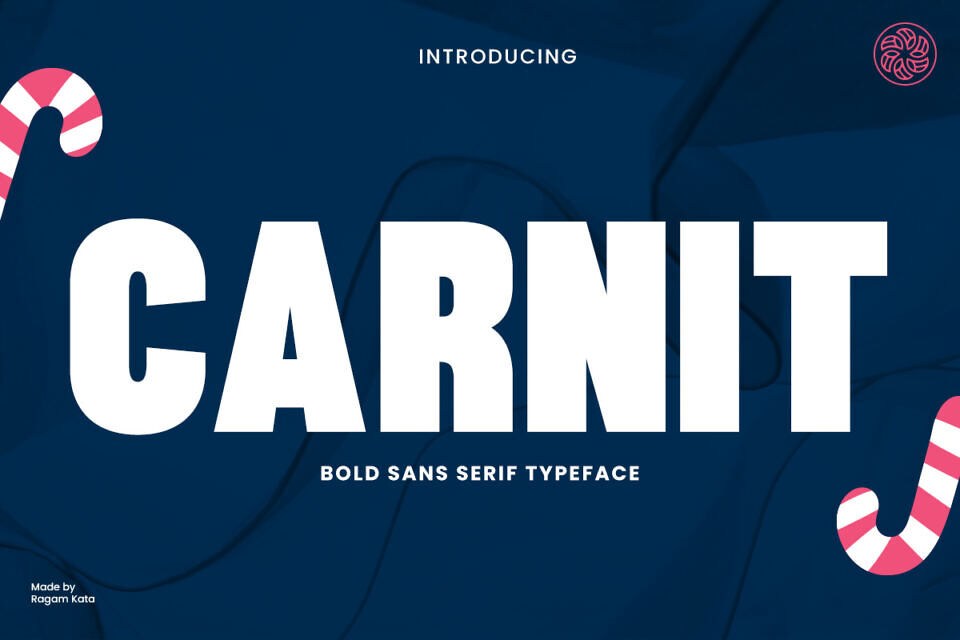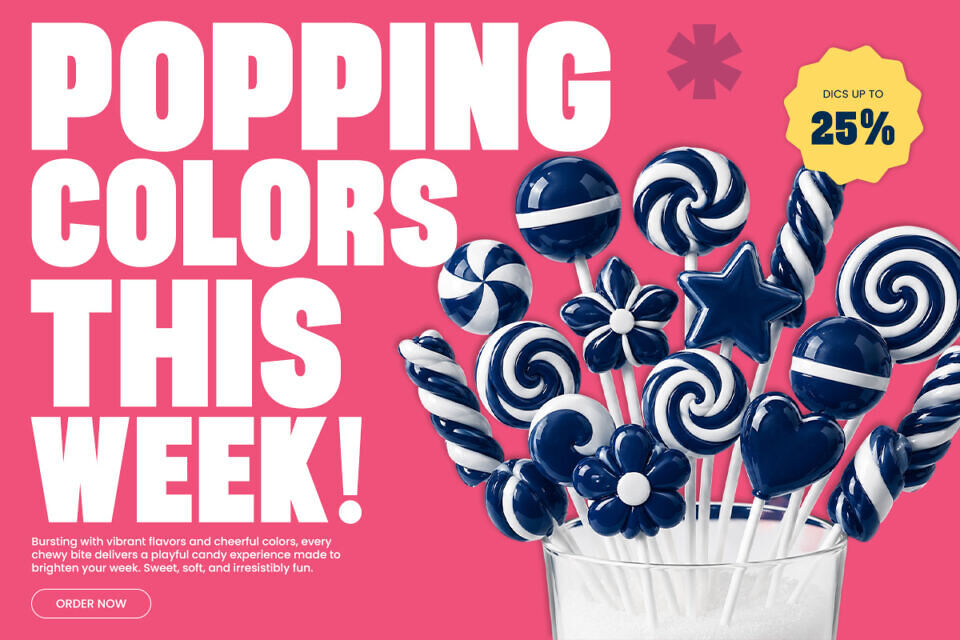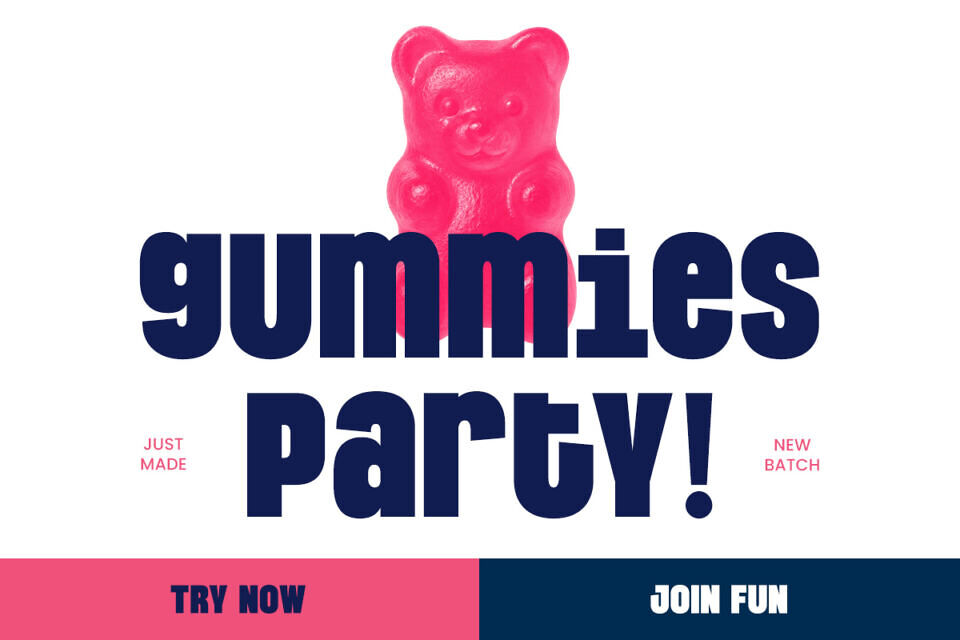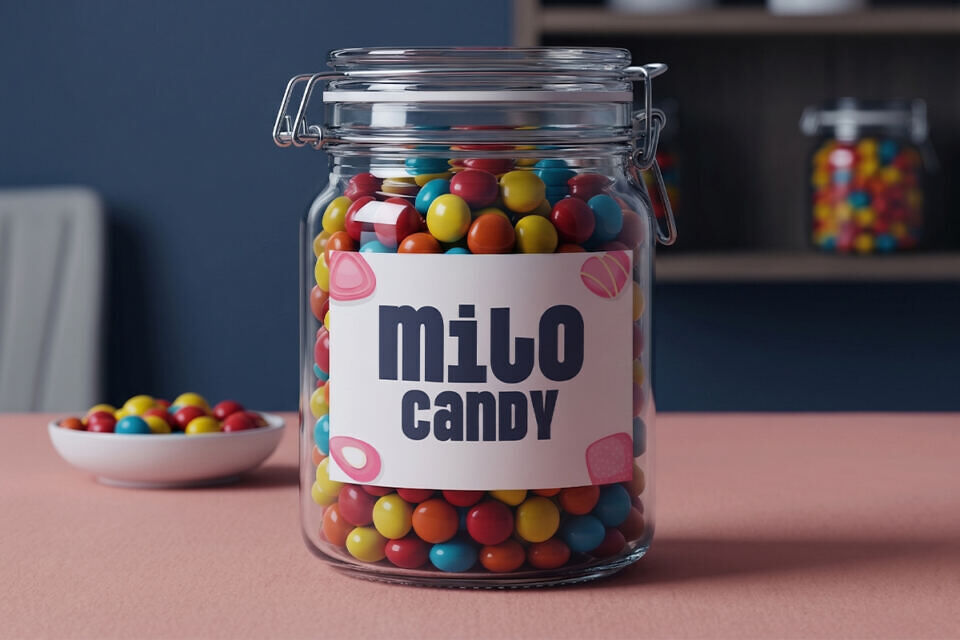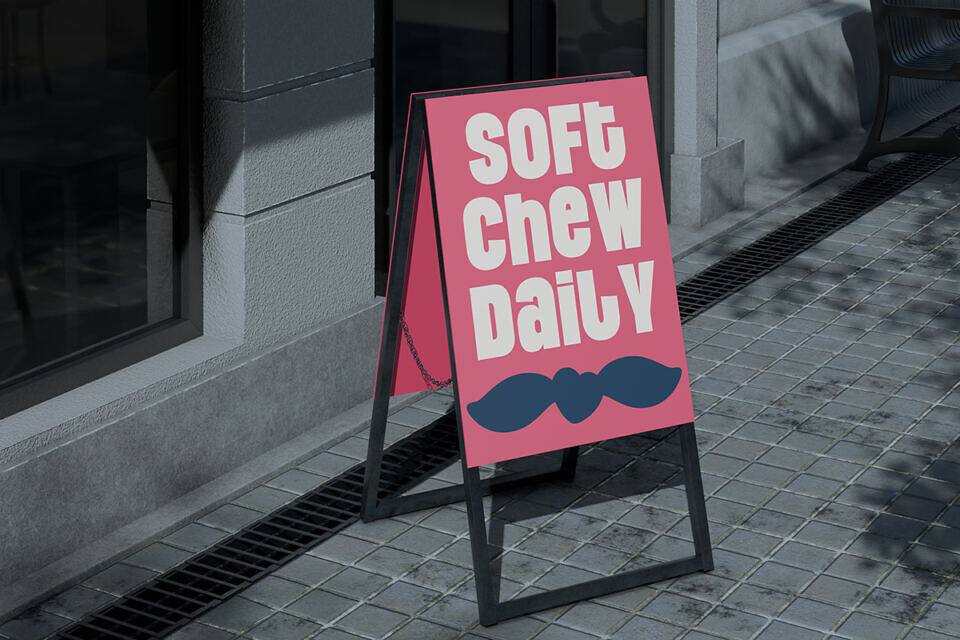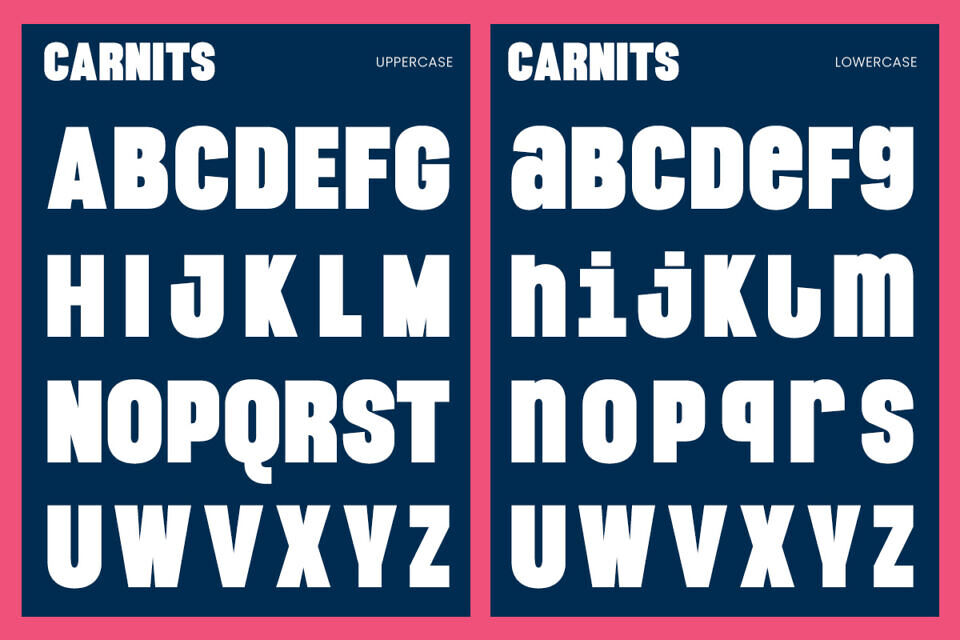
Carnit is a bold sans serif typeface designed to make every message impossible to ignore. With its chunky letterforms, playful personality, and strong geometric structure, Carnit brings instant energy to branding, packaging, posters, and modern advertising. The bold silhouette creates maximum visual impact while maintaining excellent readability across both print and digital media.
Perfect for candy brands, food packaging, children’s products, social media graphics, logos, headlines, merchandise, and promotional campaigns, Carnit delivers a fun and confident aesthetic that captures attention in seconds.